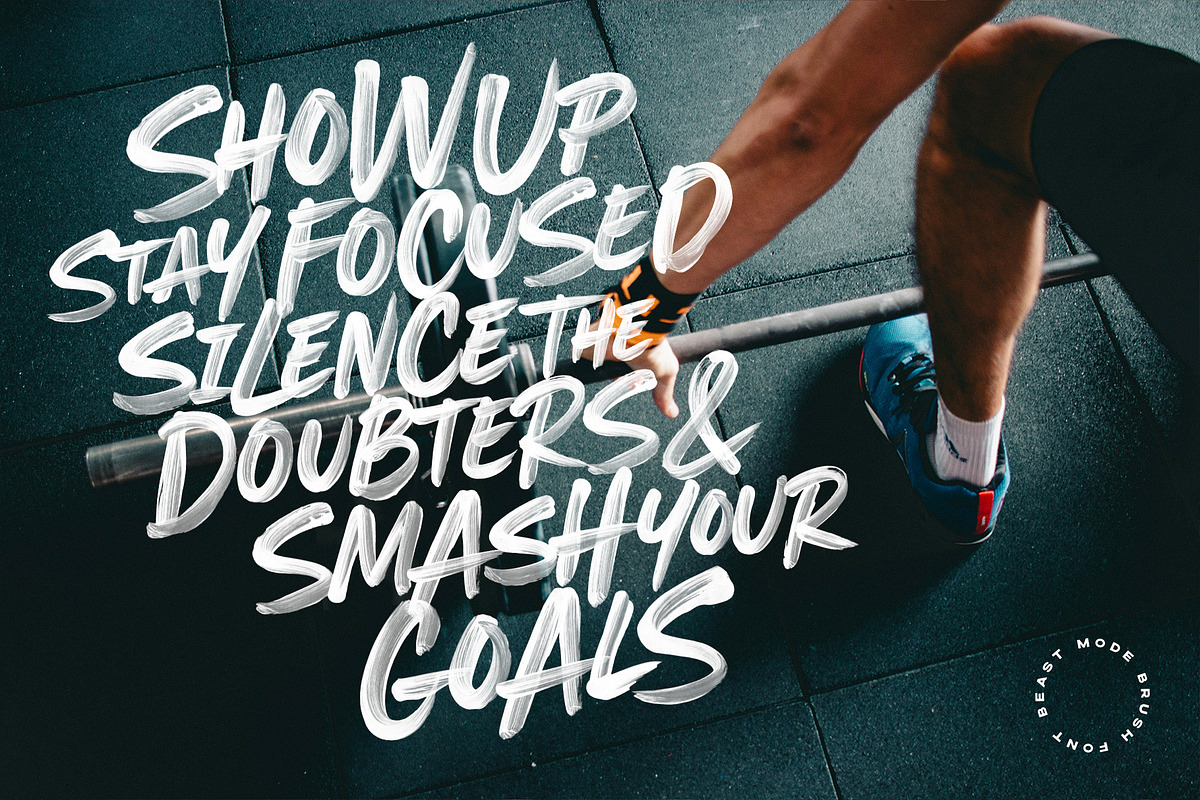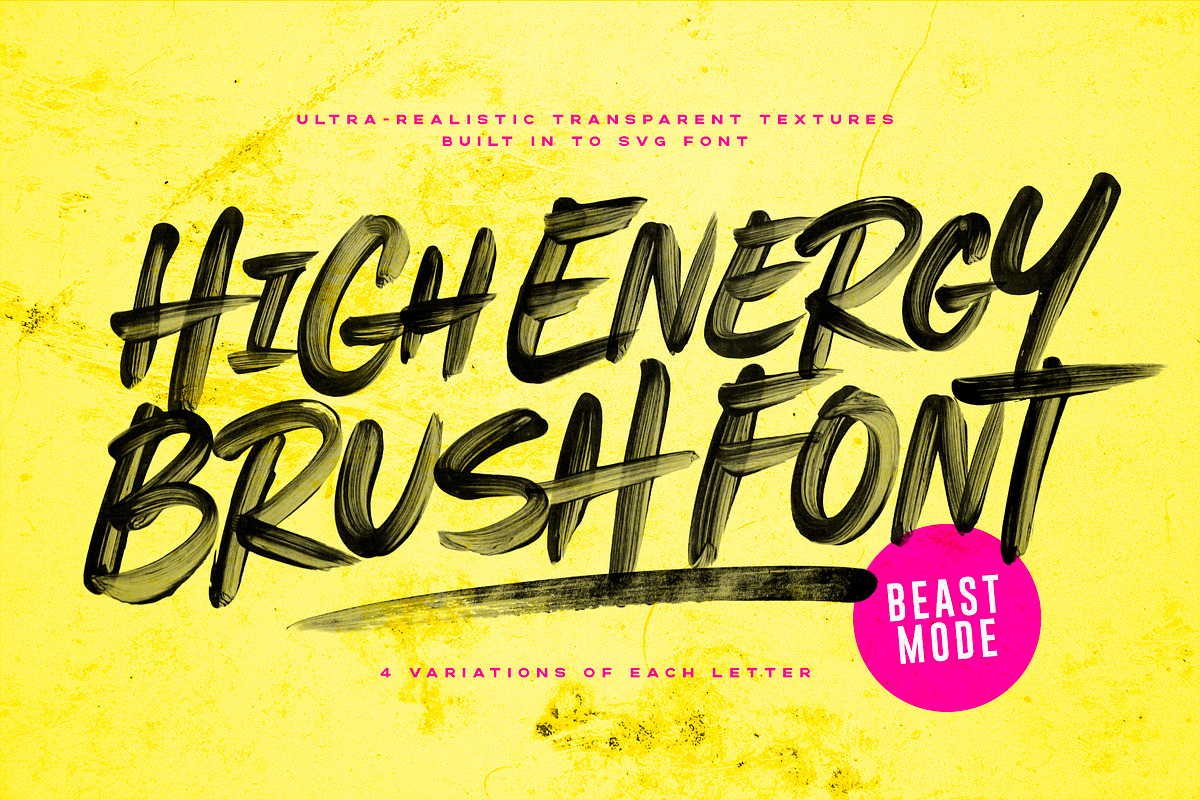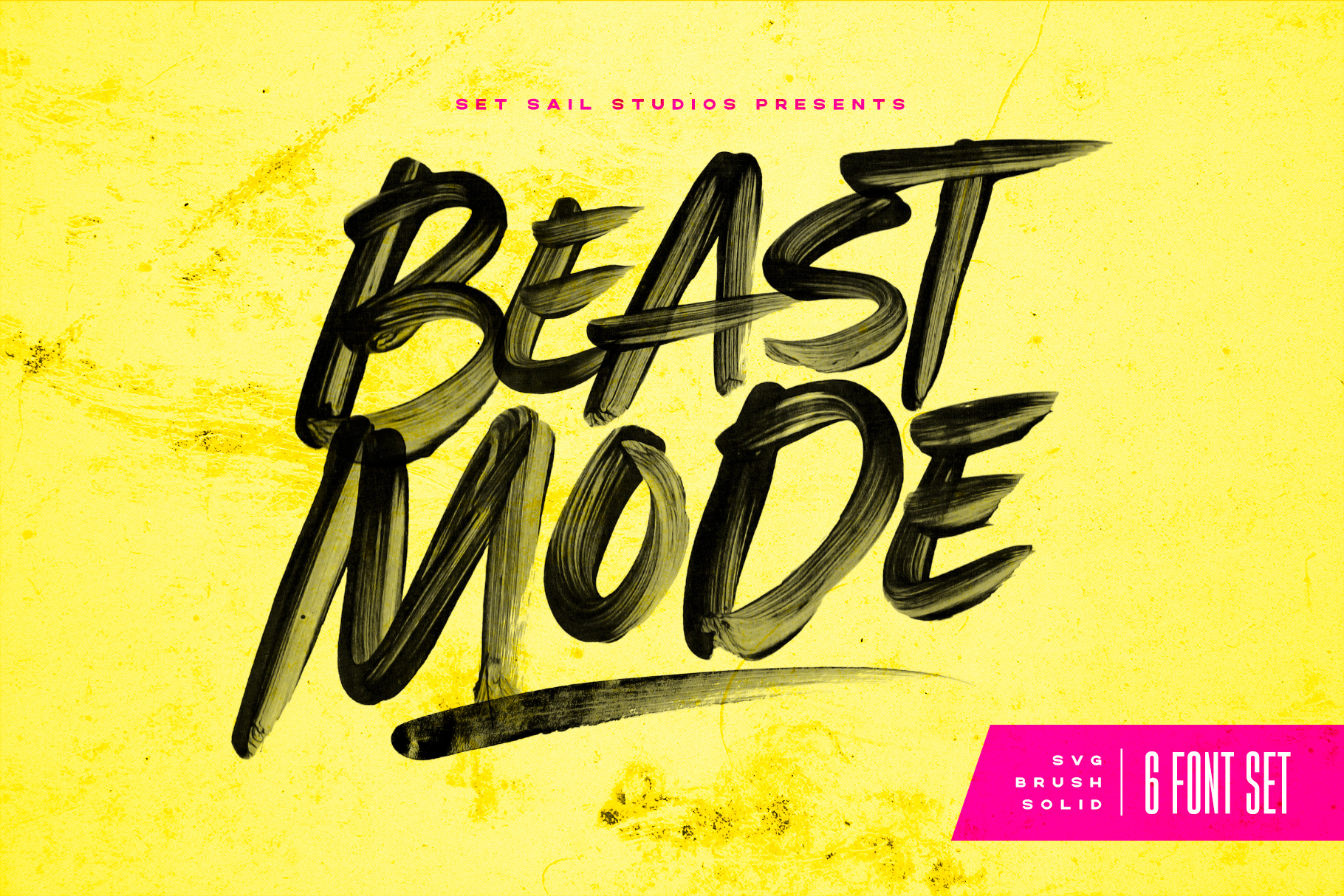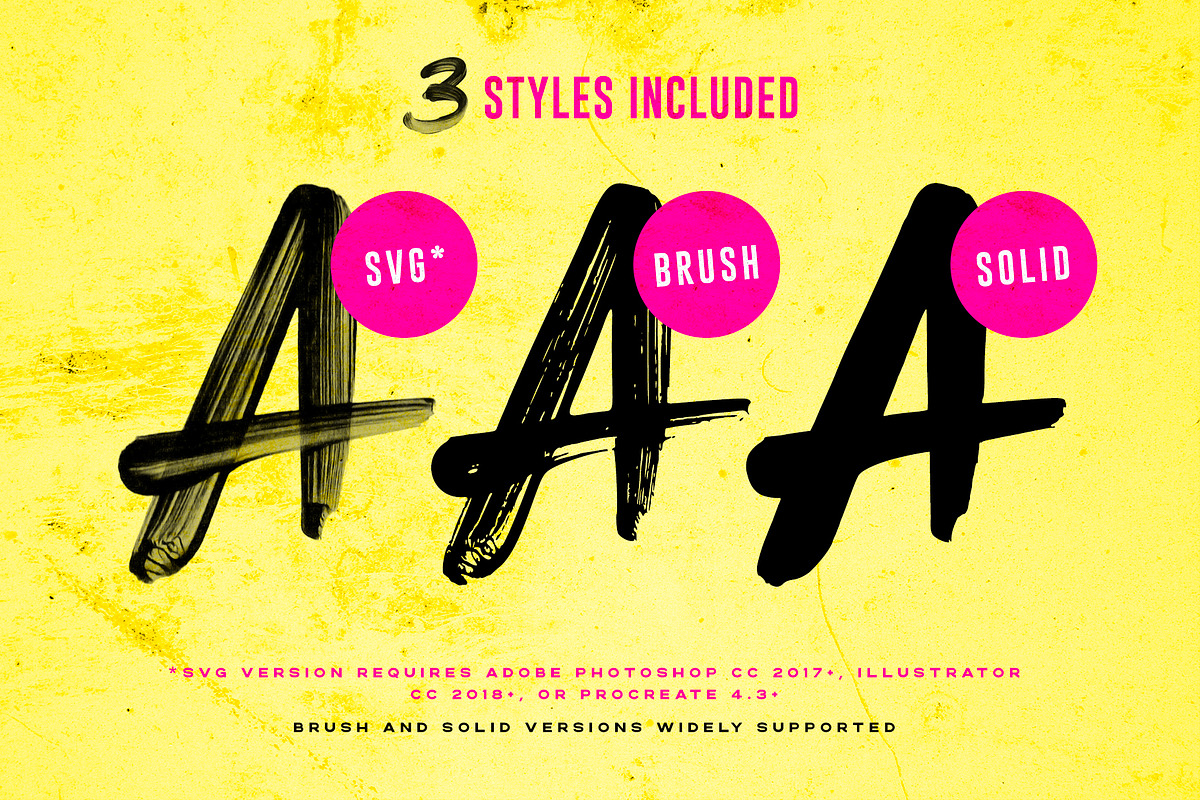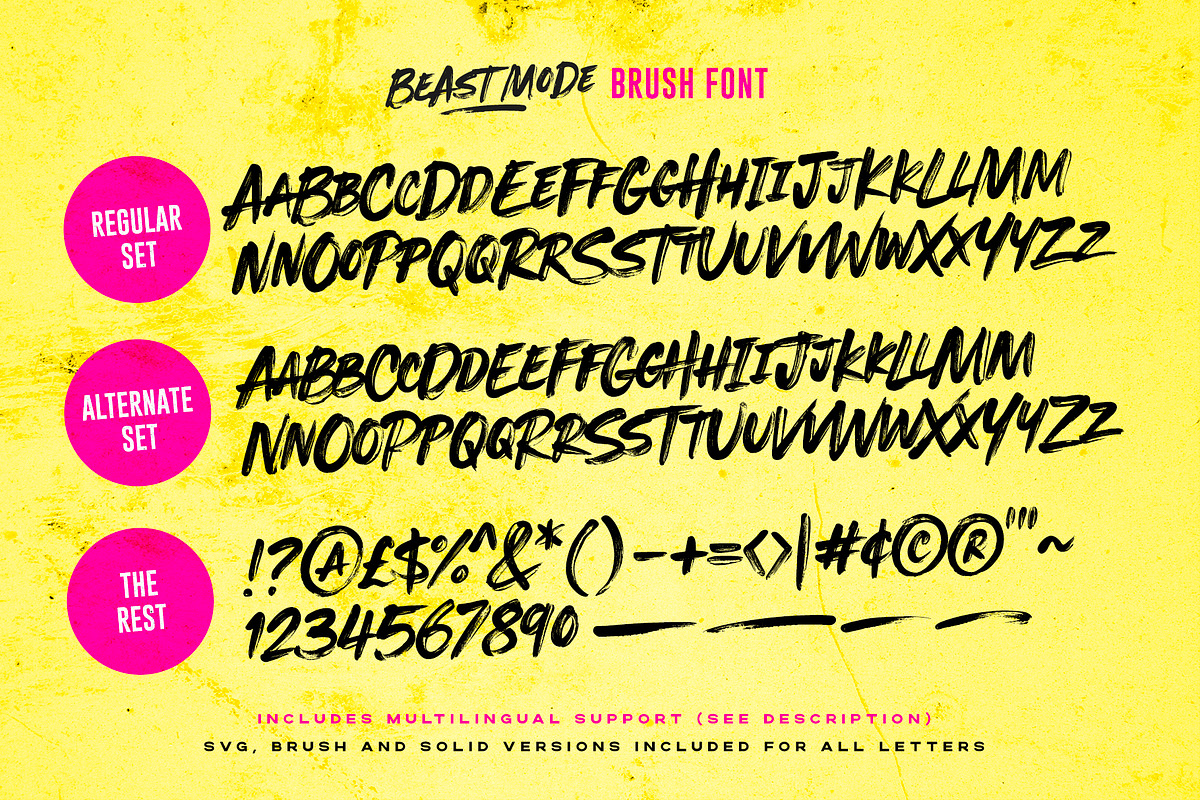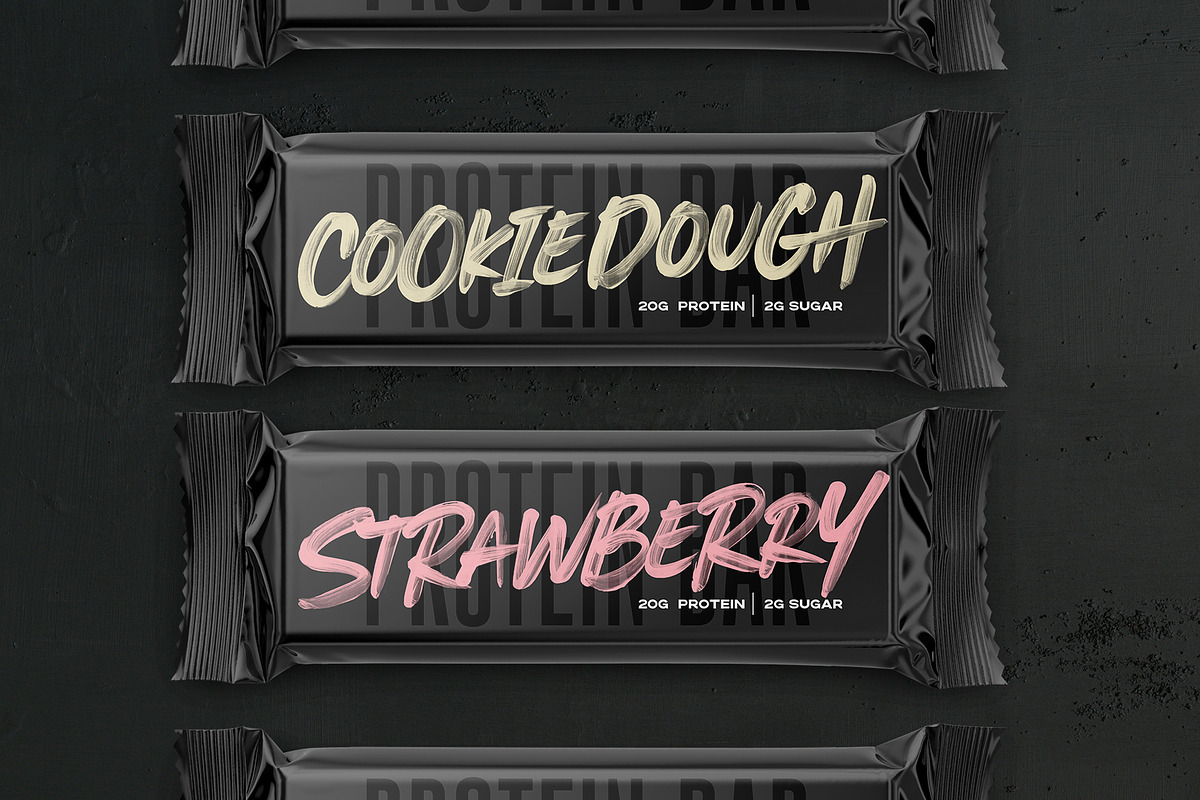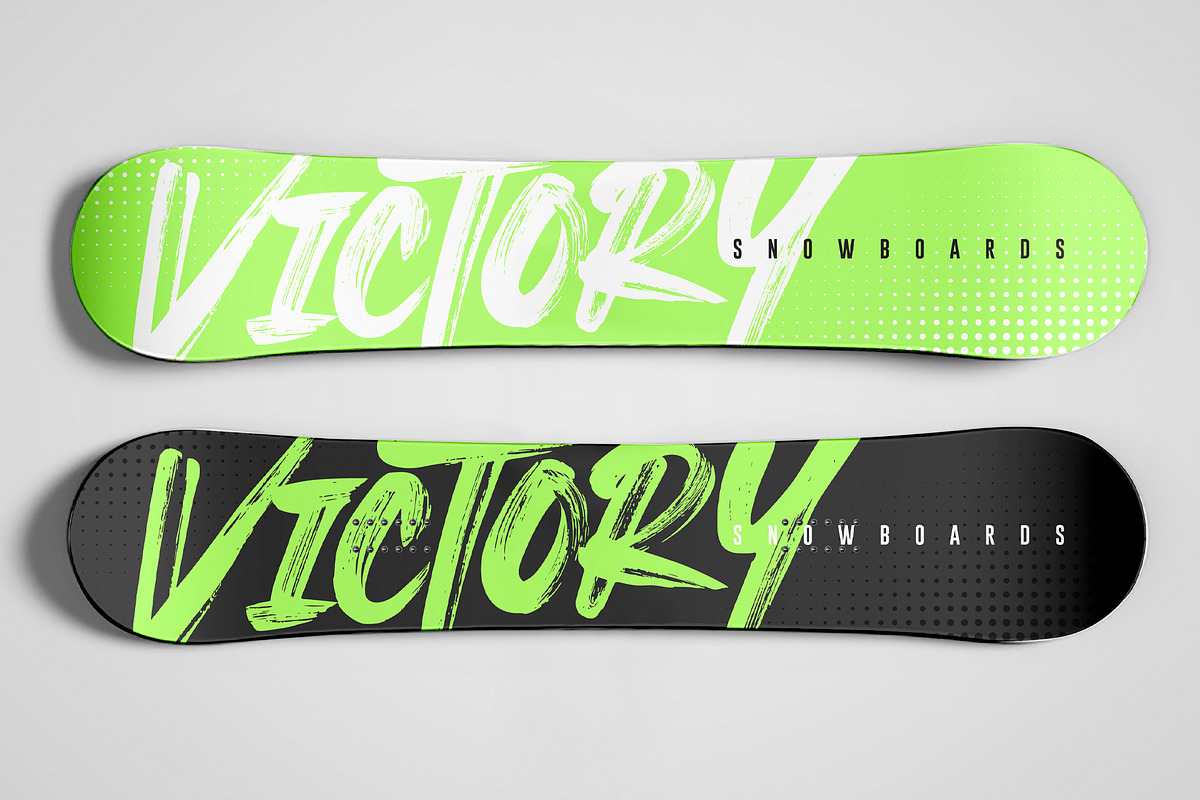
Beast Mode SVG Brush Font
Looking to inject some energy into your typography? It's time to unleash Beast Mode—A bold & brazen, all-caps brush font ready to make its mark. Hand painted with a real paintbrush and acrylic paint, this exciting set of fonts has incredibly realistic paint textures totally built in to the font in the SVG version as a transparency.
Beast Mode includes 2 full sets of 'uppercase' (bigger caps) and 'lowercase' (smaller caps) characters, giving you 4 variations of each letter for different layout and customisation options. These Regular and Alternate sets are included in SVG, Brush, and Solid variations of the paintbrush texture - giving you a total of six fonts to experiment with;
- Beast Mode SVG
- Beast Mode Brush
- Beast Mode Solid
- Beast Mode SVG Alt
- Beast Mode Brush Alt
- Beast Mode Solid Alt
The SVG font contains the following accents which can be manually typed and added to your letters; ¨ ˜ ´ ˆ ` ˚ ˘ ˛ ¸